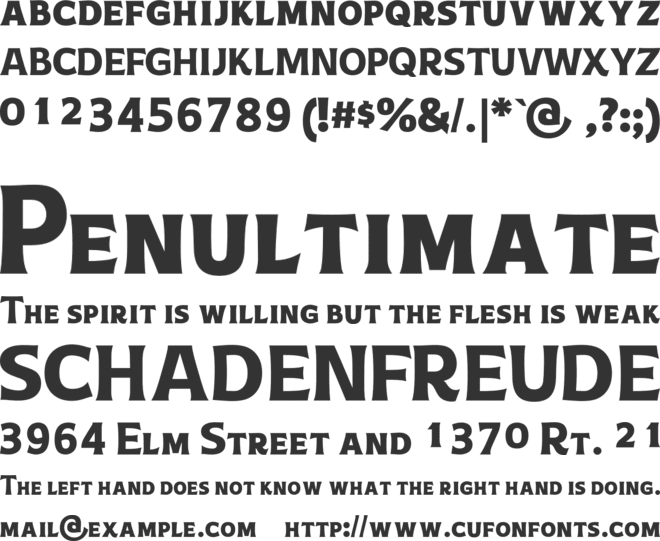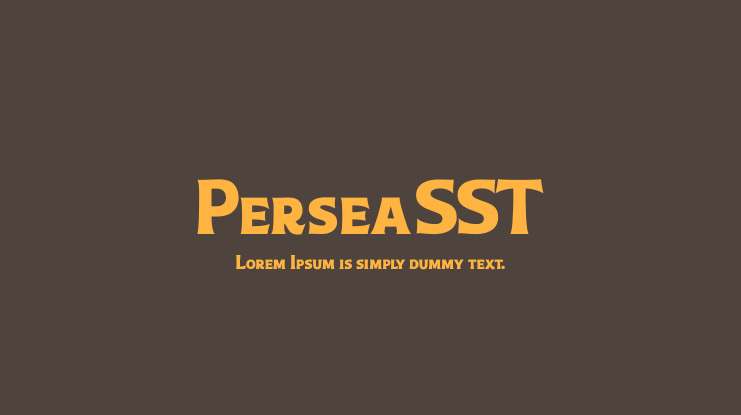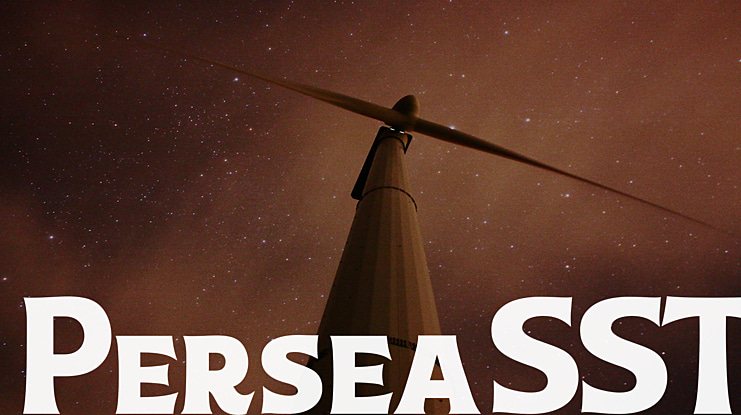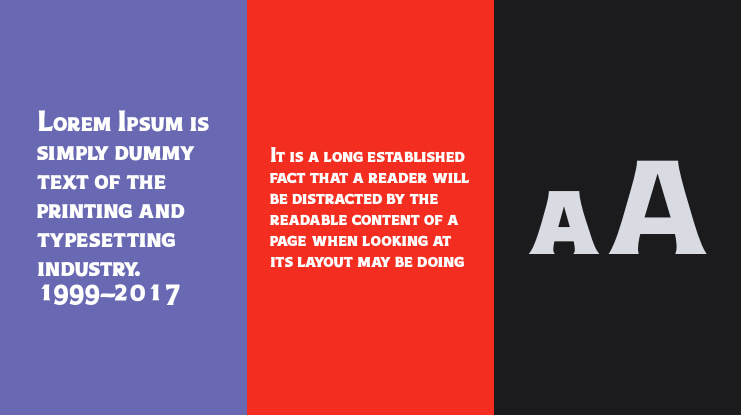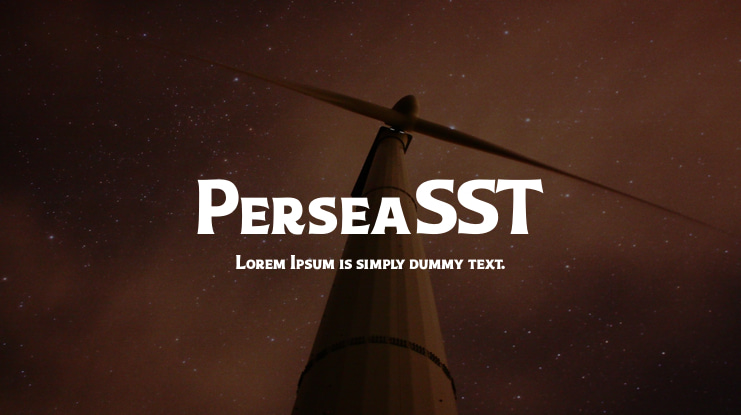
PerseaSST Font Family
This font is a vintage serif display with unique detail. Made from font designer named Reformer Mockup. This font was created for display needs such as headings, signage, logo, badge design, packaging, etc. OTF and TTF files are included. Latin and Cyrillic version. You are licensed to use the product for personal and commercial purposes. You can create any products for yourself or for your customers. You can use it as many times as you want.